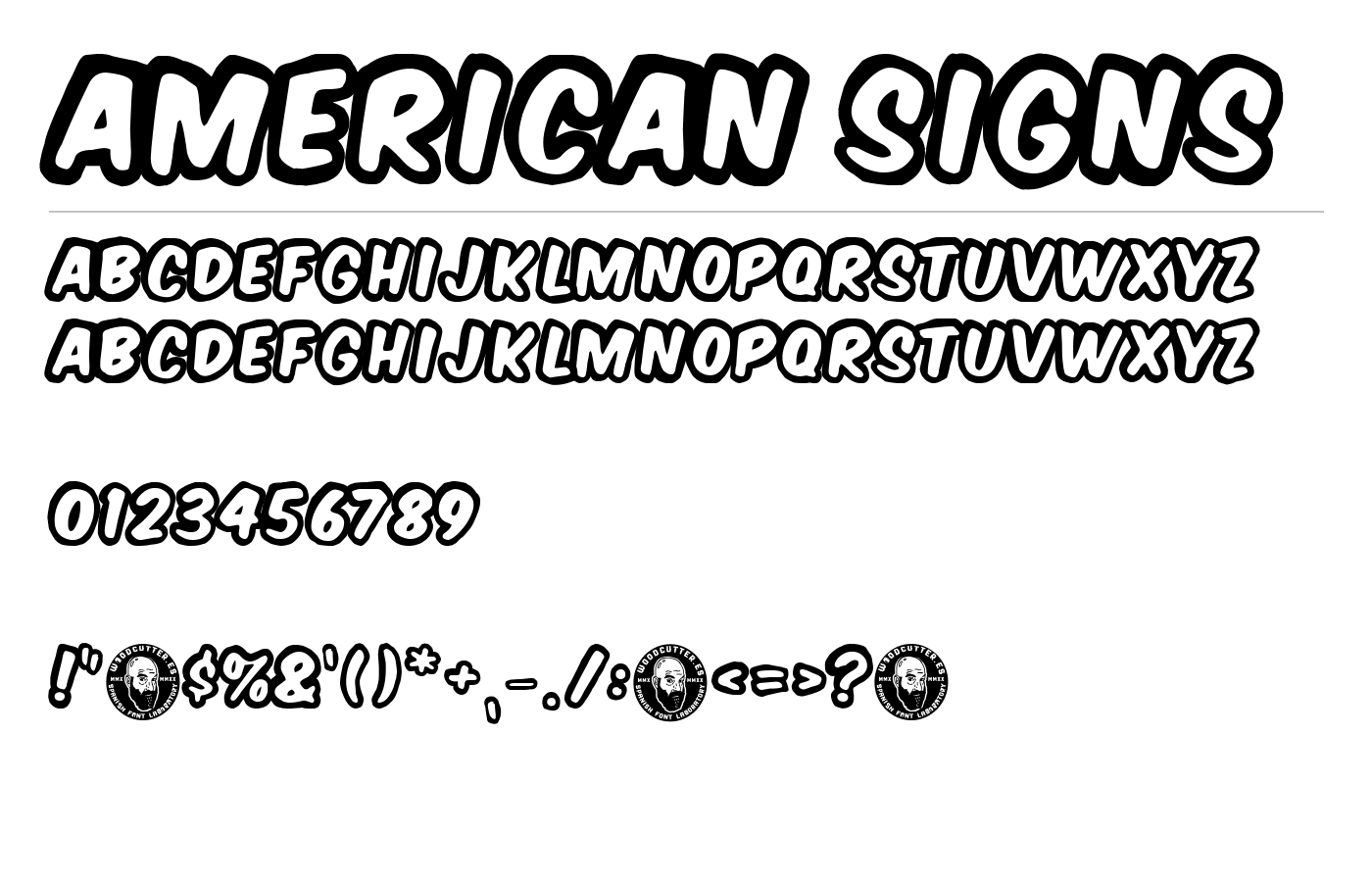
American Signs Font is a bold, playful sans serif with thick strokes and a slightly condensed width, featuring an informal, hand-drawn style paired with a strong black outline. It captures a lively, retro sign-painting vibe perfect for fun, eye-catching headlines, logos, and posters that want to convey energy and approachability. This font works well in casual or vintage-inspired designs where a friendly, impactful look is needed.
American Signs Font
About American Signs Font